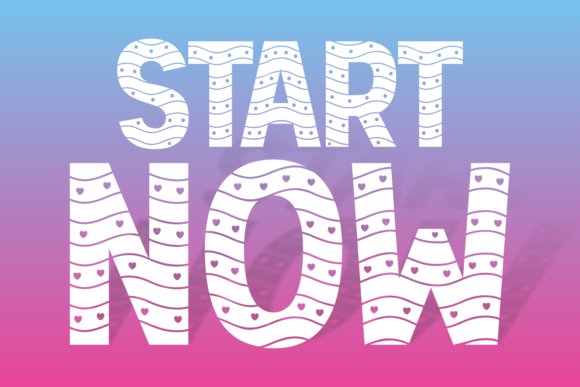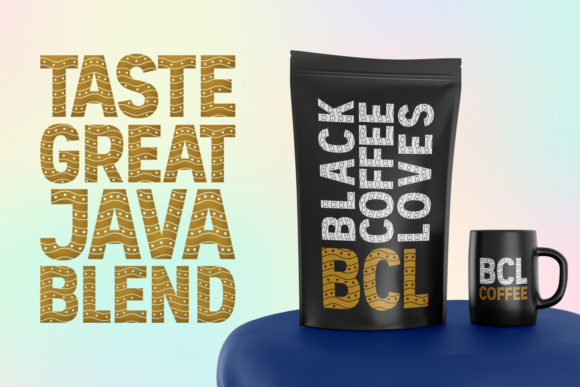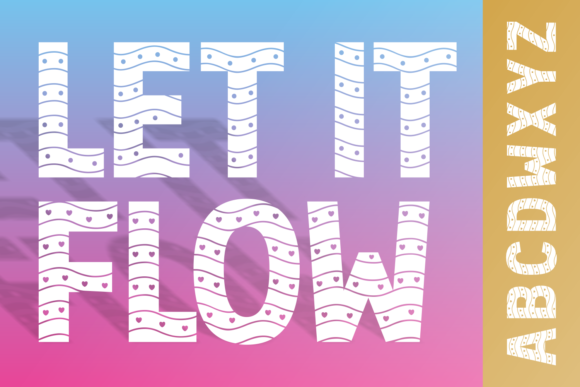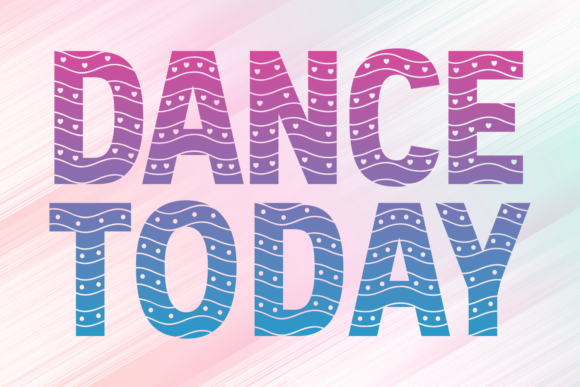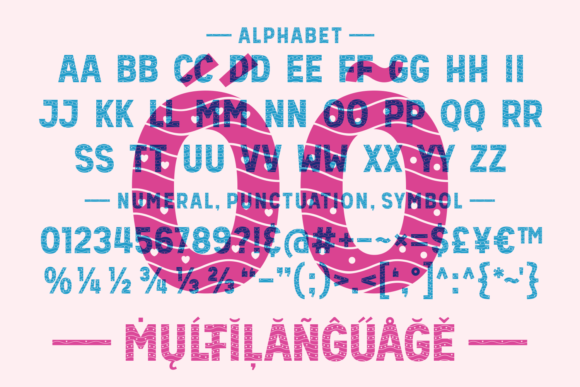
Introduction to Aver Reva Font
Aver Reva is a fun and exciting decorative font suitable for your most creative ideas and projects.
Use it for book covers, banners, marketing materials, stationery, social media posts, and more .
Key Features of Aver Reva Font
Why Choose Aver Reva Font?
Aver Reva Font offers exceptional quality and versatility, making it a valuable addition to your design toolkit. Whether you’re creating for personal projects or commercial use, Aver Reva Font delivers professional results.